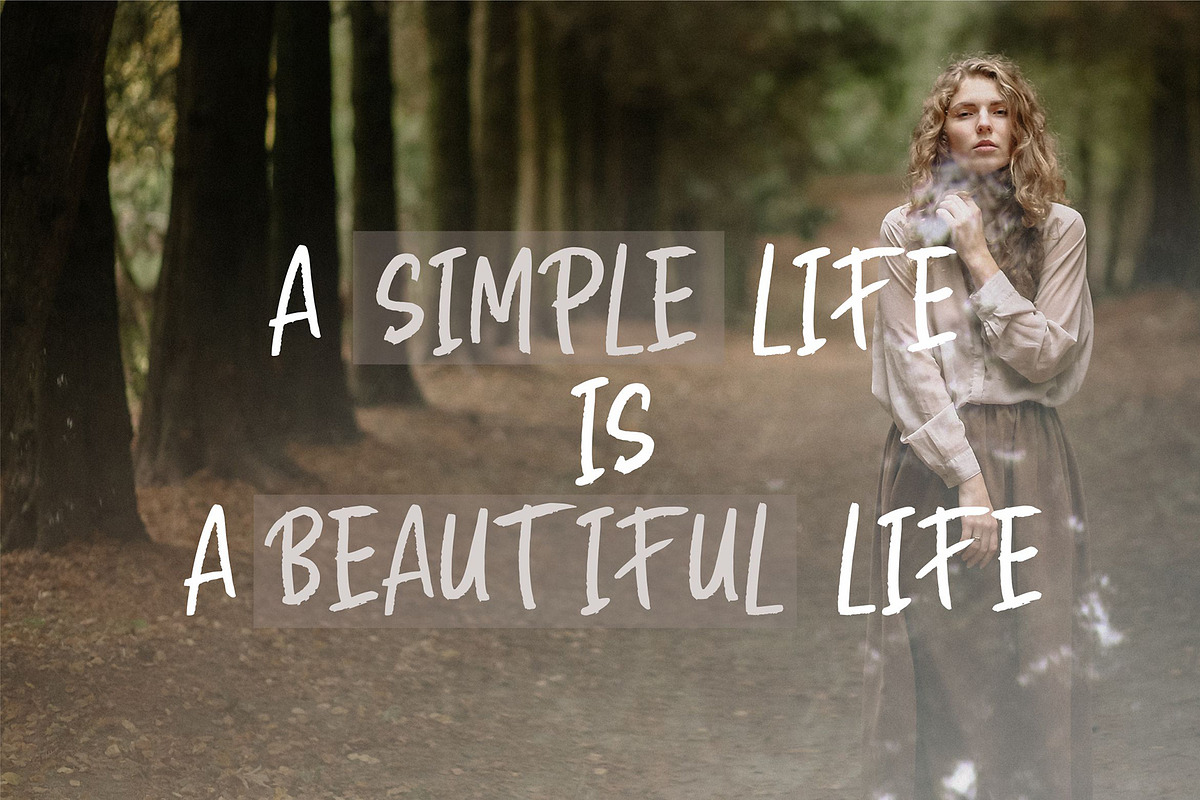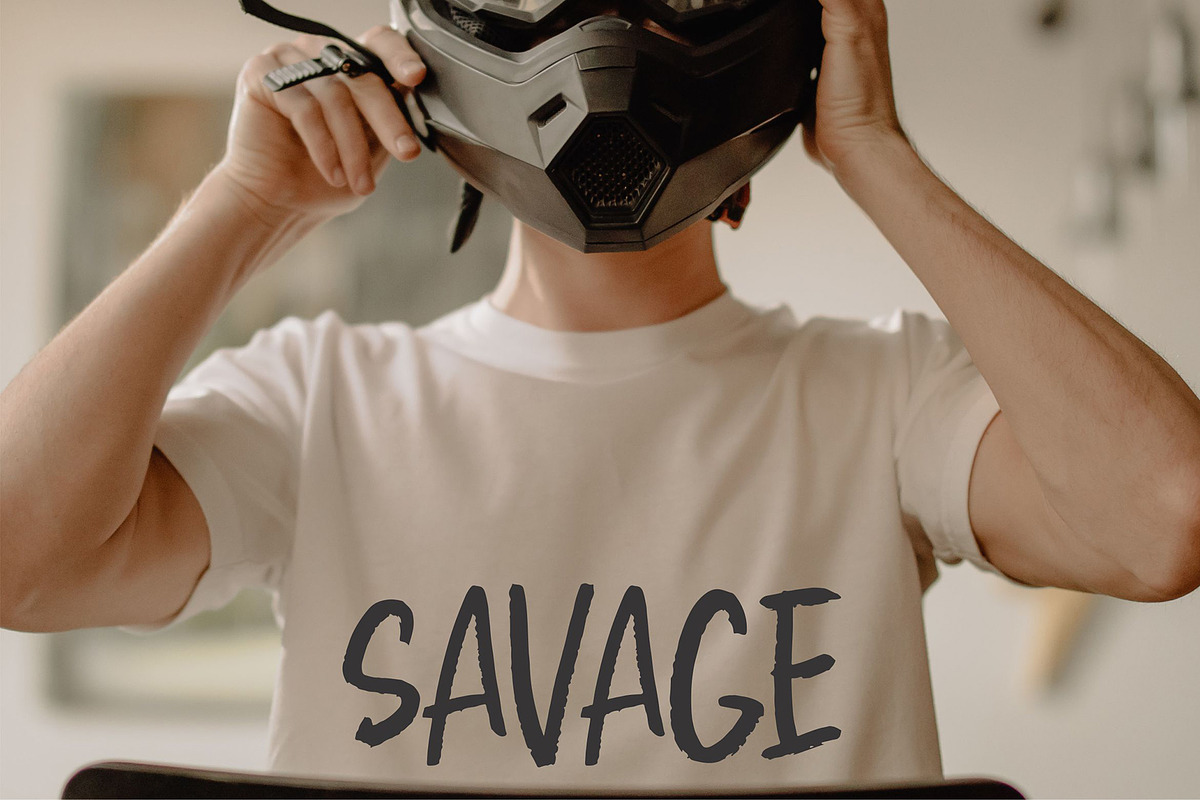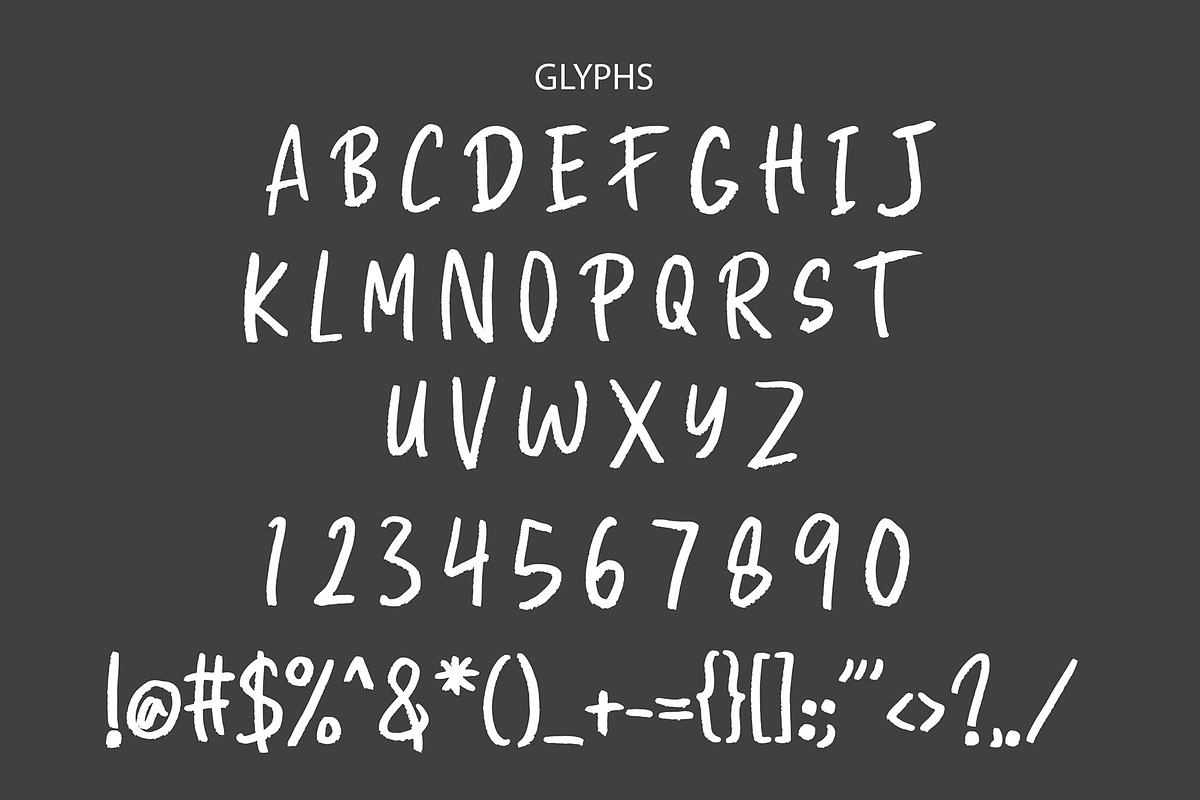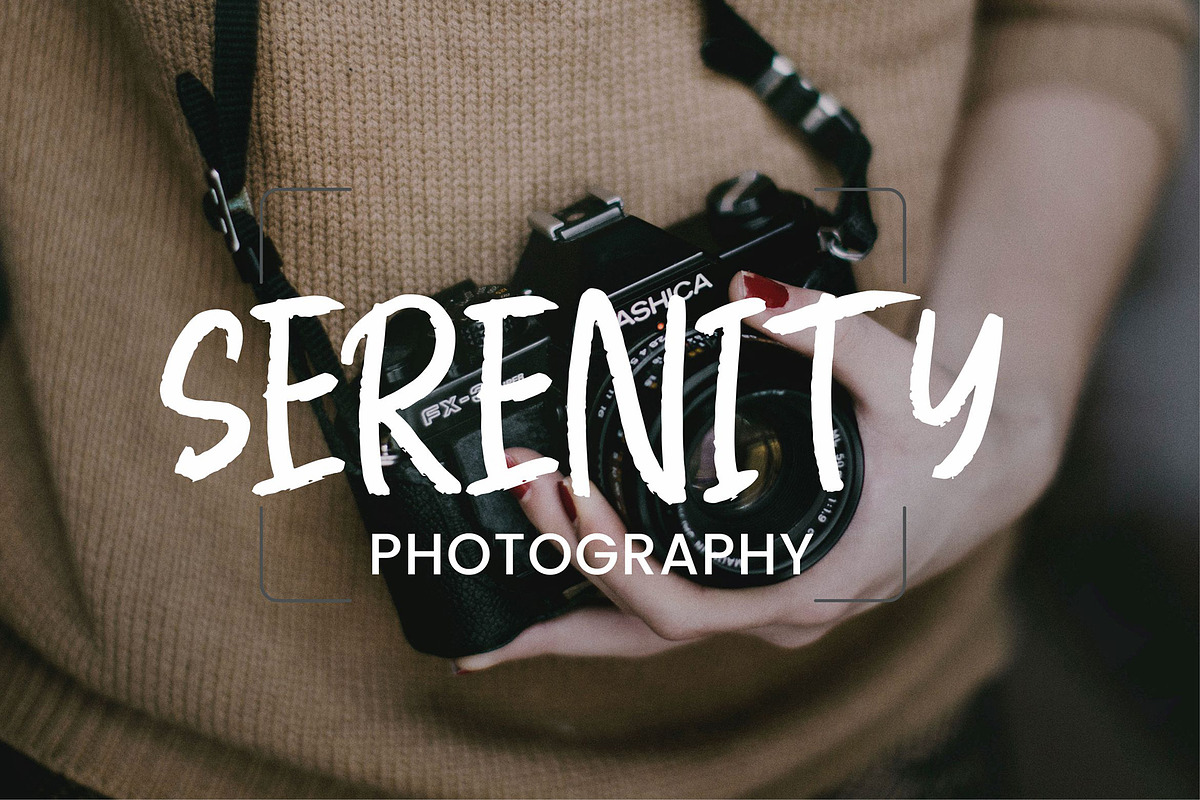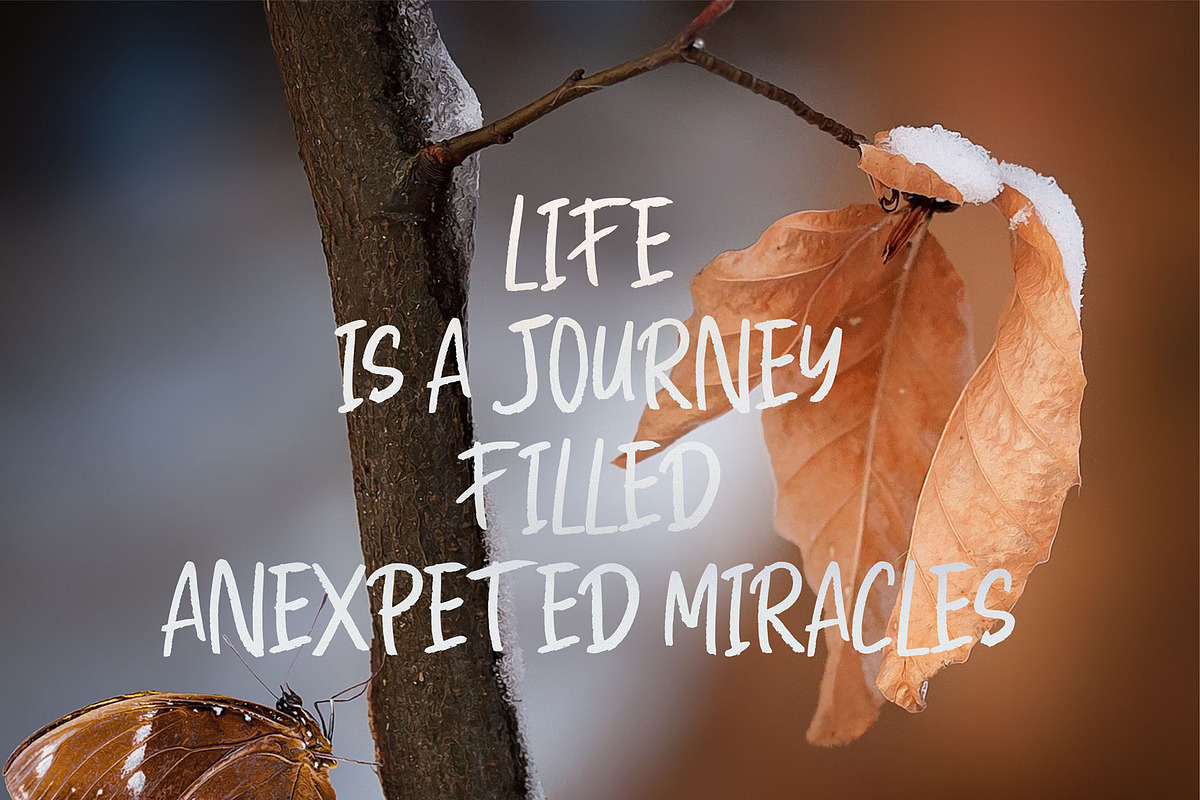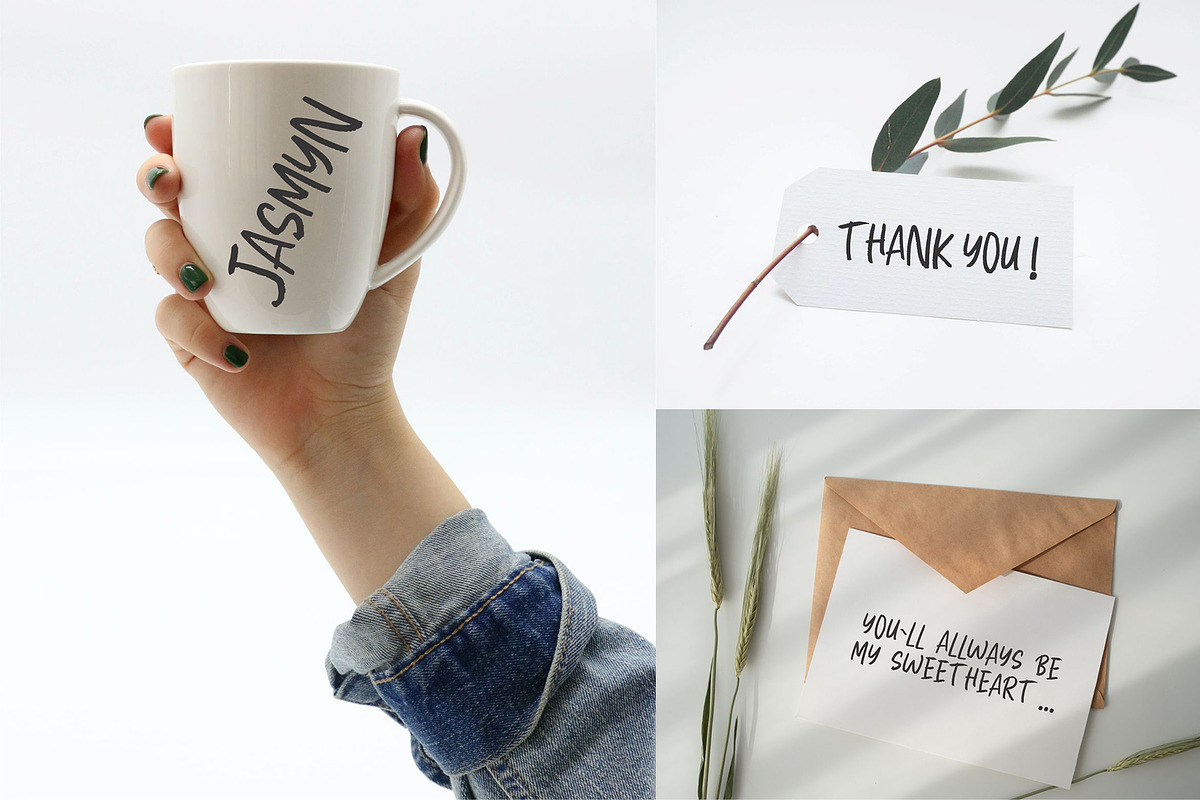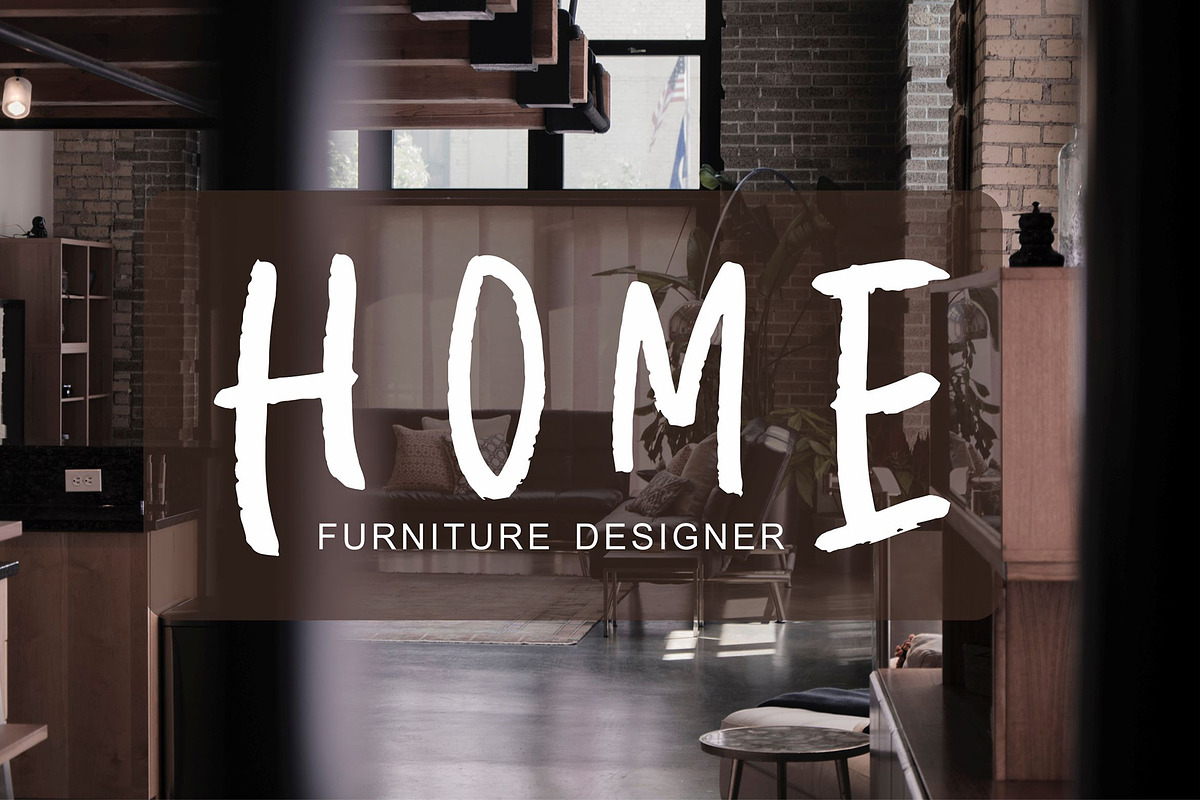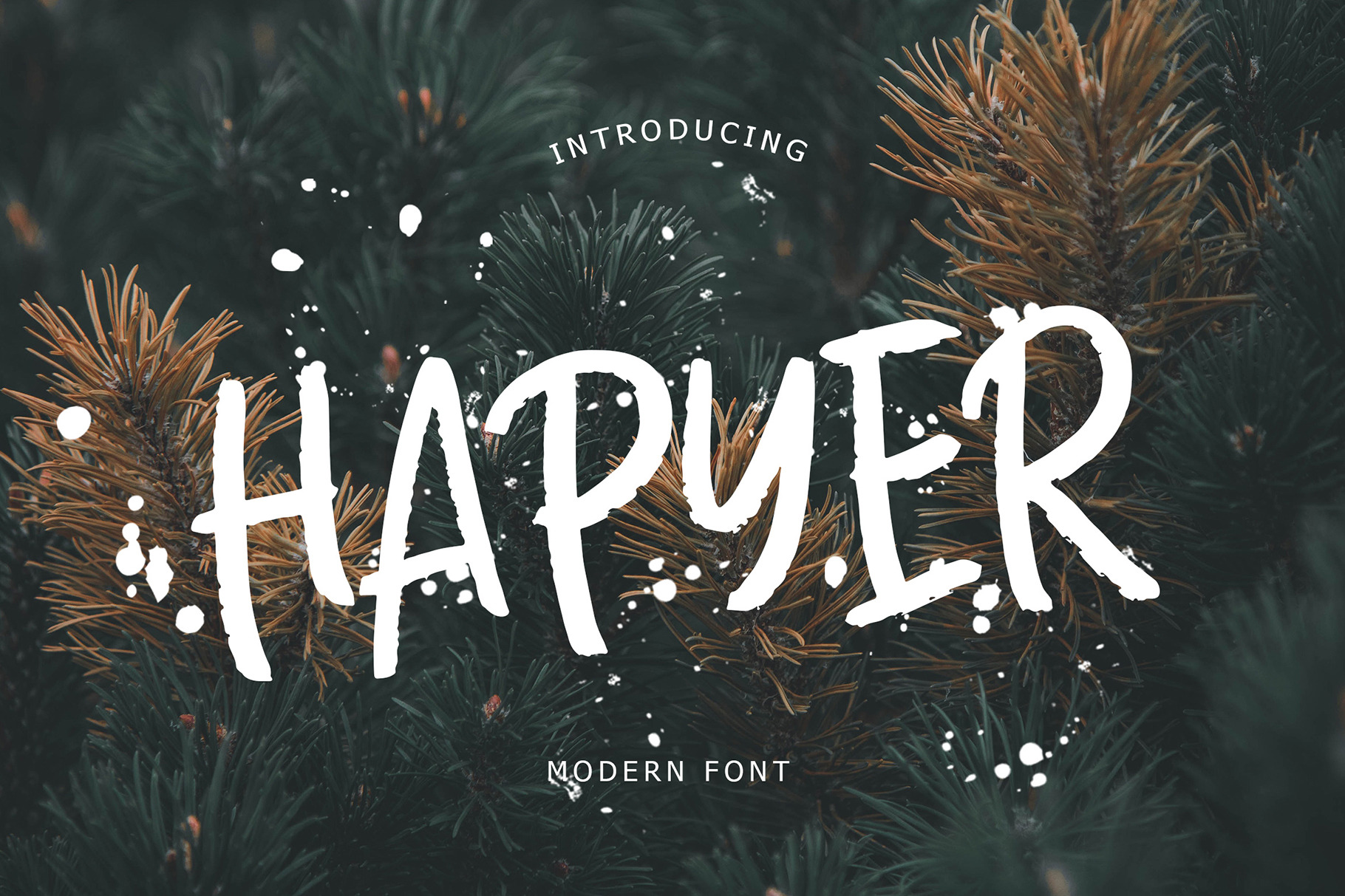
Hapyer Modern Font
Hapyer is modern handwritten font. This font perfect for branding projects, logo, tshirt designs, social media posts, advertisements, product packaging, product designs, label, watermark, invitation, stationery and any projects